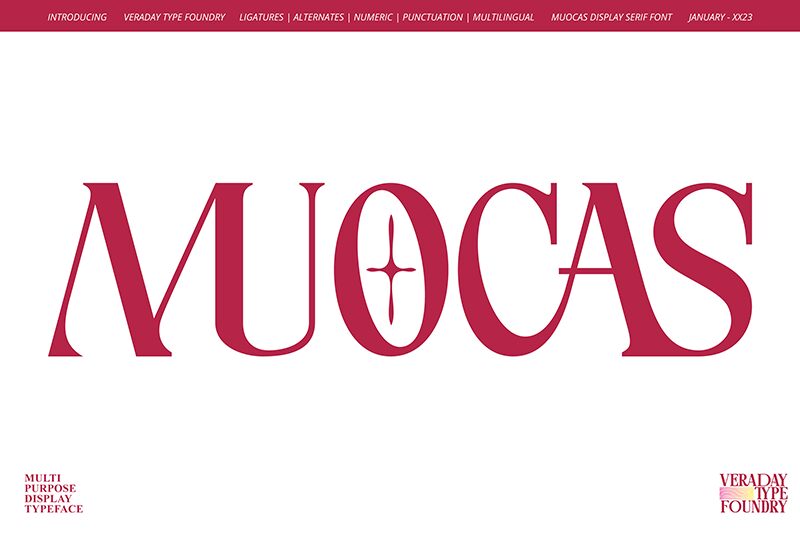
Muocas Display Serif font by Ferdiansyah is a free display serif font. Remote influences from Sanskrit shape letters into their artful current form. Though the font look feels foreign, it is well readable and useful for packaging, websites, and branding purposes. The short and wide font excites and elevates any text it writes.
Use this font on posters, book titles, newspaper headlines, product packaging, social media infographics, logos, and branding materials. Muocas Display Serif is particularly suited and expected to give a custom-made feeling to hand-crafted products and designs.